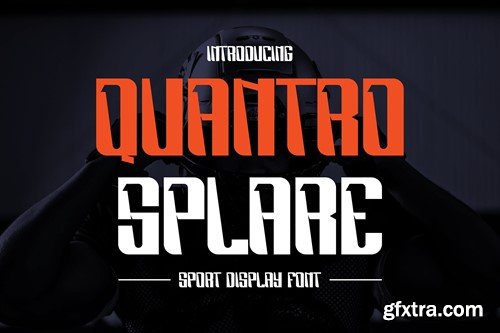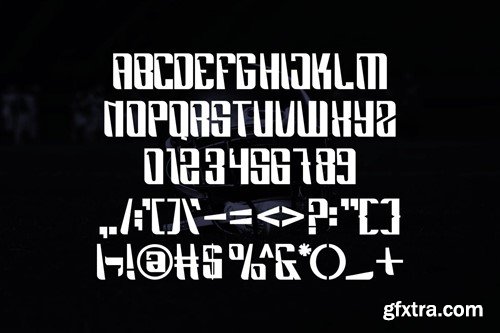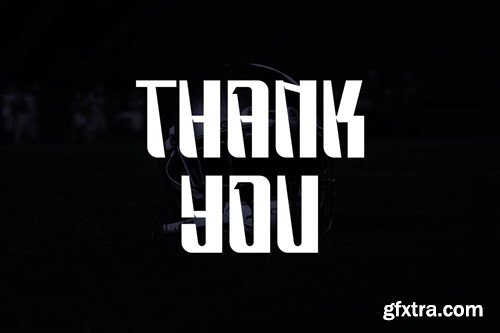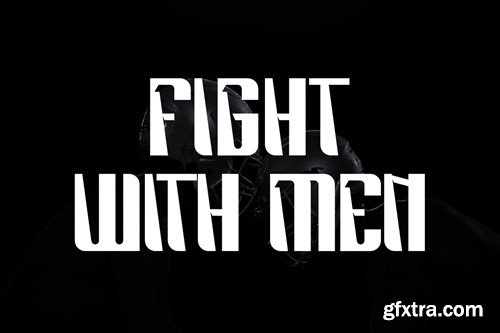
Quantro Splare Font
Quantro Splare Font is not just a font; it's a work of art. Crafted with precision and a keen eye for detail, every letter and character embodies a sense of sophistication and style. Whether you're designing a logo, a website, a poster, or a branding project, this font adds that touch of class that sets your work apart. Suitable for both print and digital media Perfect for branding, logos, marketing materials, and more Files: Features: